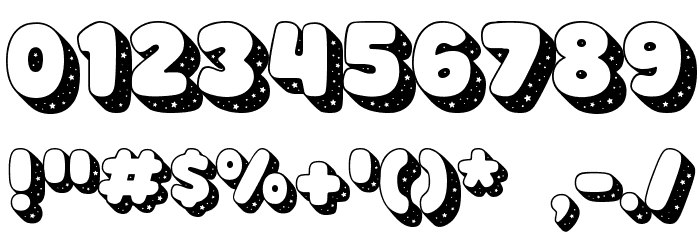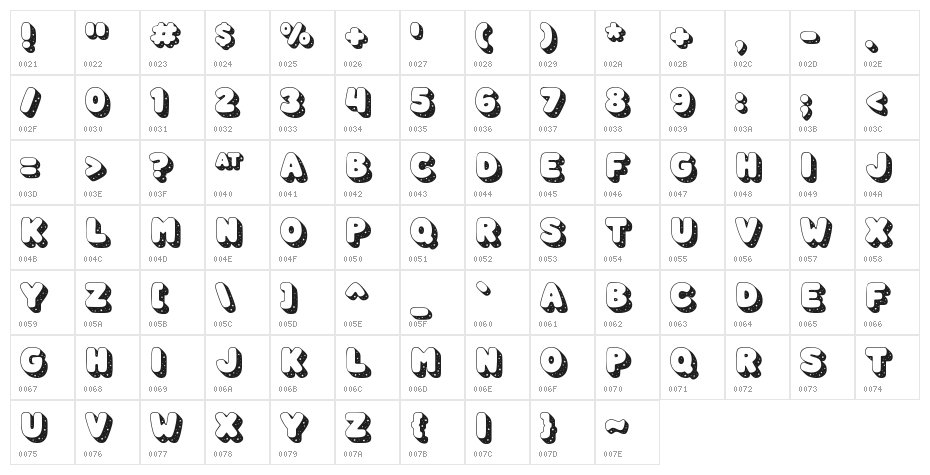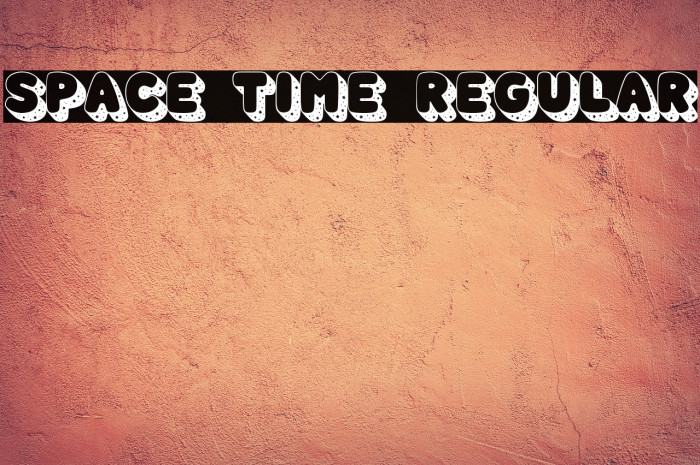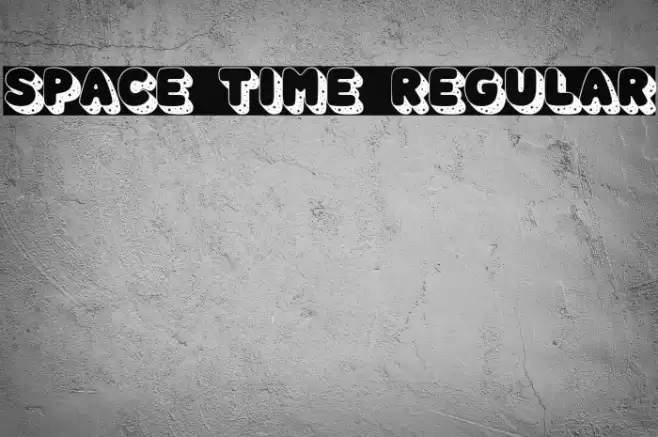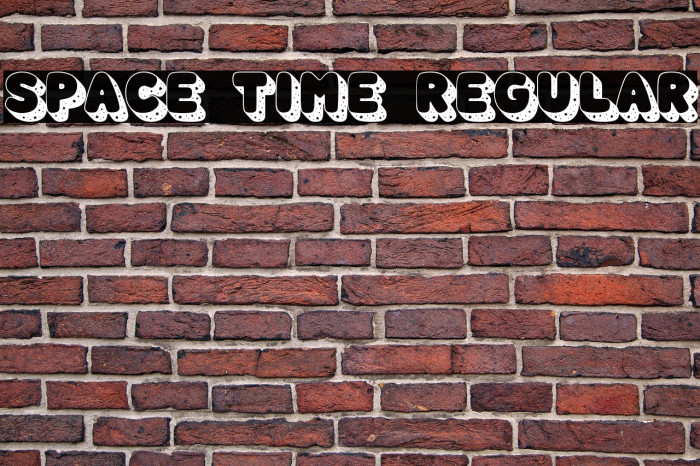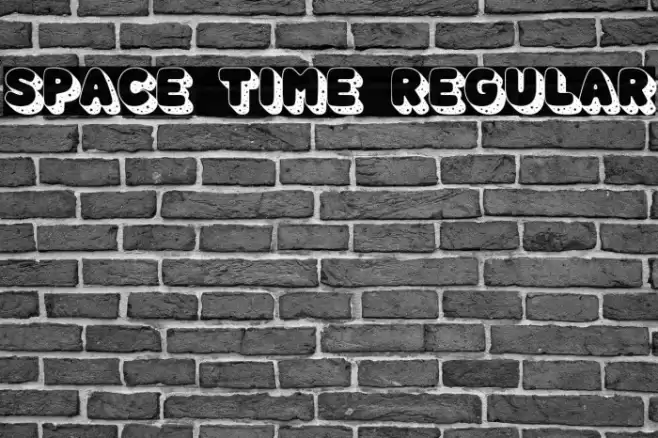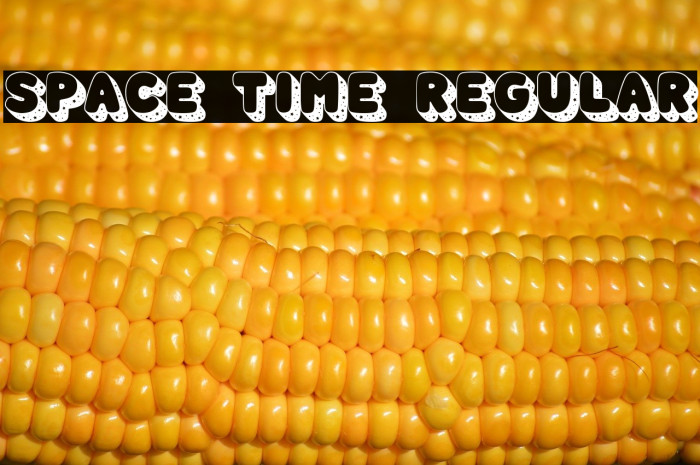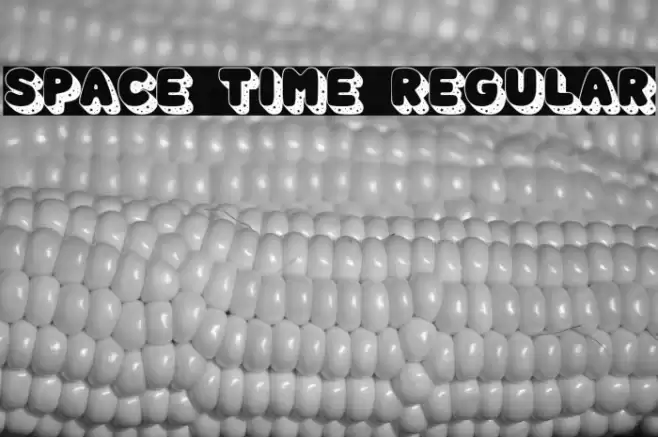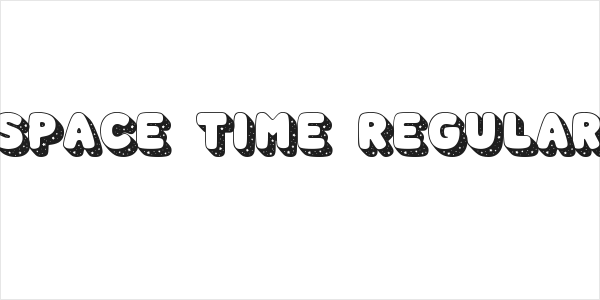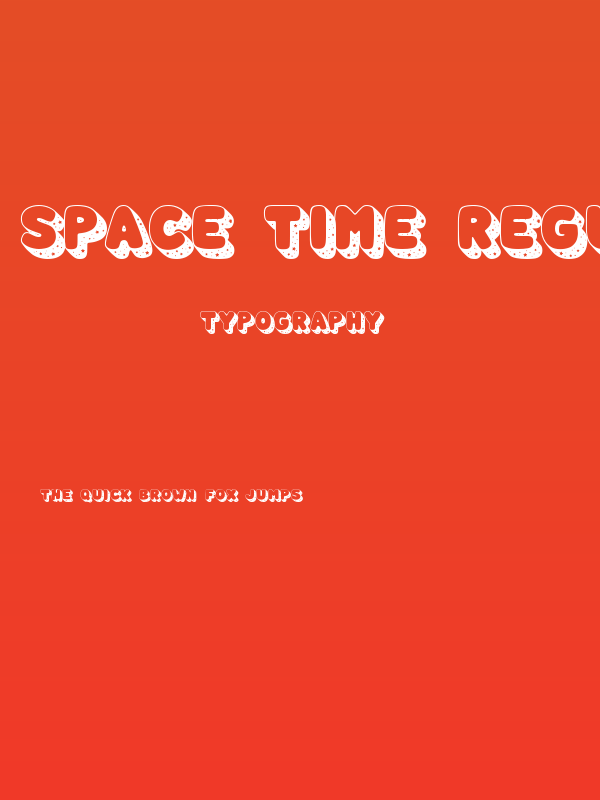
Space Time Regular Font
Space Time Regular Description
This playful and bold font features a unique space-themed design, with each character filled with starry patterns that evoke a sense of wonder and imagination. The letters are rounded and thick, giving them a friendly and approachable appearance. The font's whimsical style is perfect for capturing attention and adding a fun, cosmic touch to any project. Its boldness ensures readability while the decorative elements make it stand out. The consistent starry motif across all characters creates a cohesive and engaging visual experience.
Proposed ProjectsIdeal for children's books, space-themed event posters, playful branding, and educational materials.